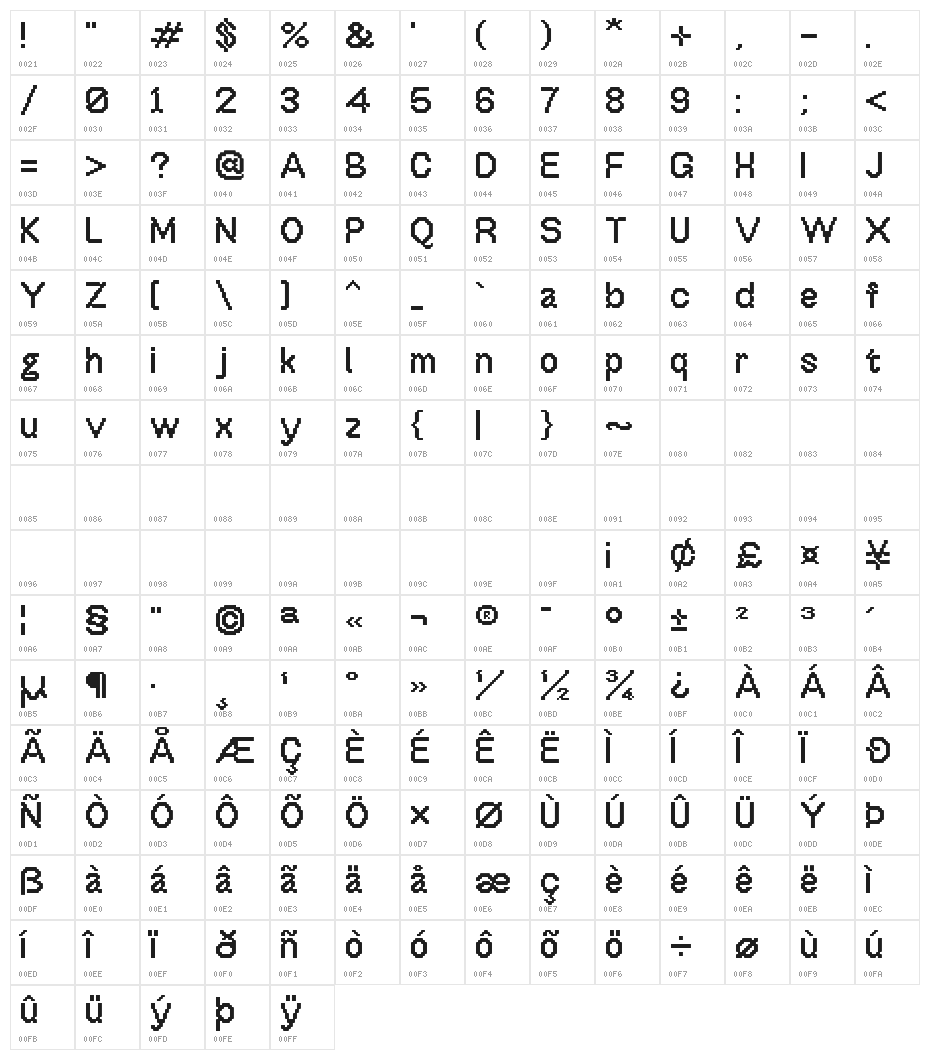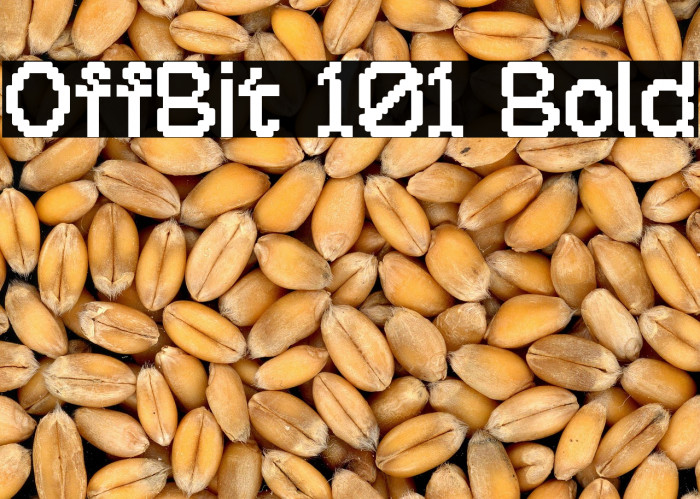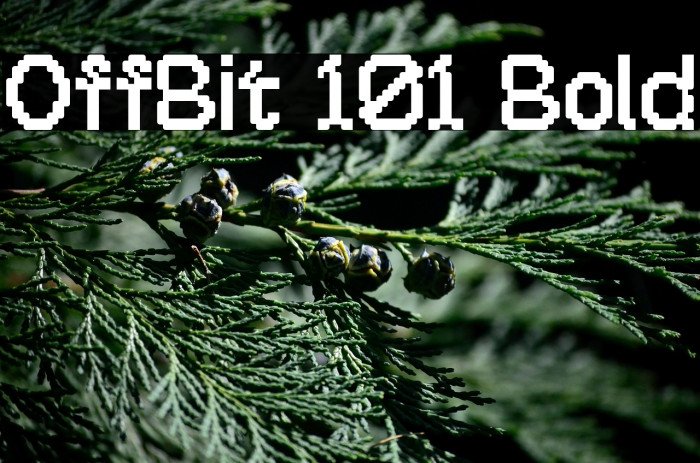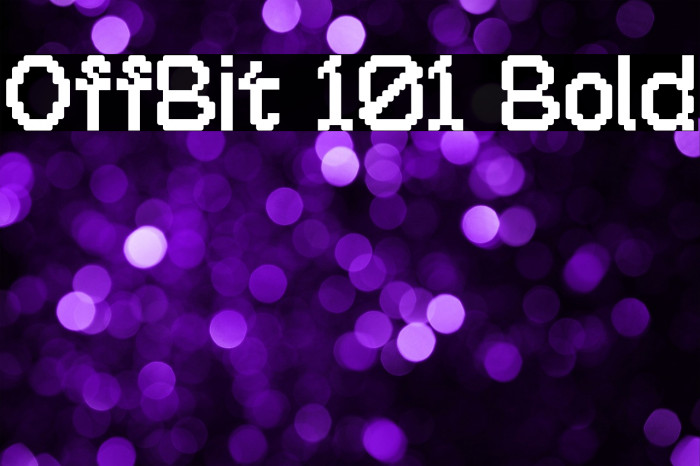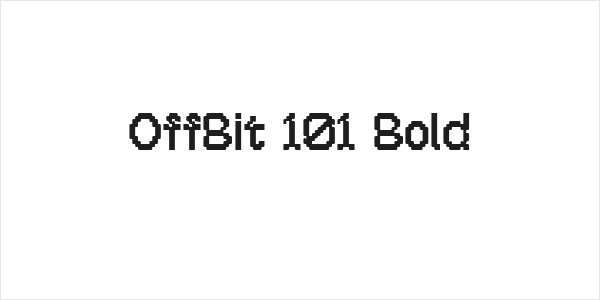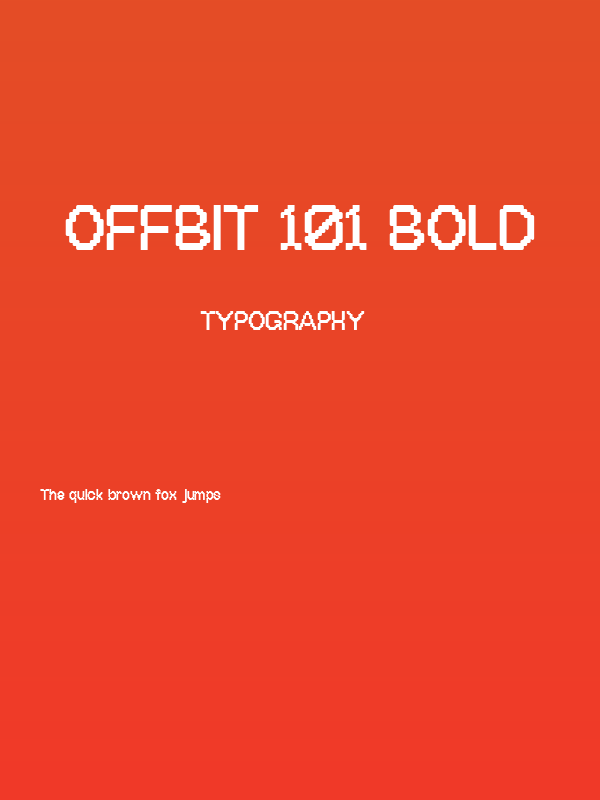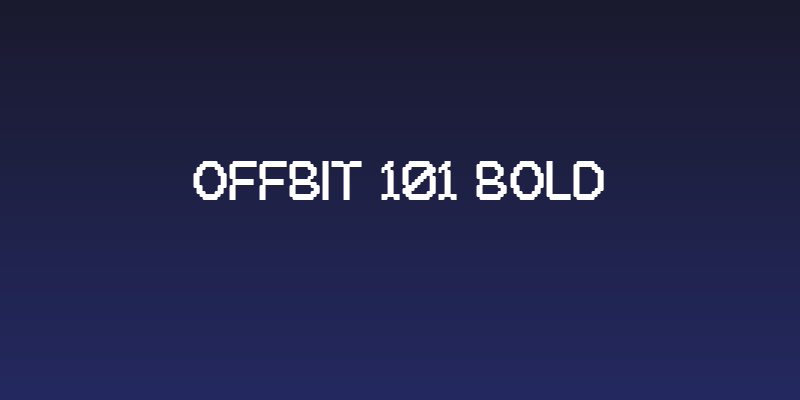
OffBit 101 Bold Font
OffBit 101 Bold Description
This font features a pixelated, blocky design reminiscent of early digital or video game typography. The characters are uniformly bold with a consistent stroke width, giving it a strong and impactful appearance. The uppercase and lowercase letters maintain a similar width, contributing to a cohesive look. The numerals and special characters follow the same pixelated style, ensuring uniformity across all glyphs. This font's retro digital aesthetic makes it ideal for projects that aim to evoke nostalgia or a tech-oriented theme.
| Overall Style | Retro, Digital |
| Proposed Projects | Ideal for video game design, tech-themed posters, retro digital art, and any project requiring a nostalgic digital feel. |